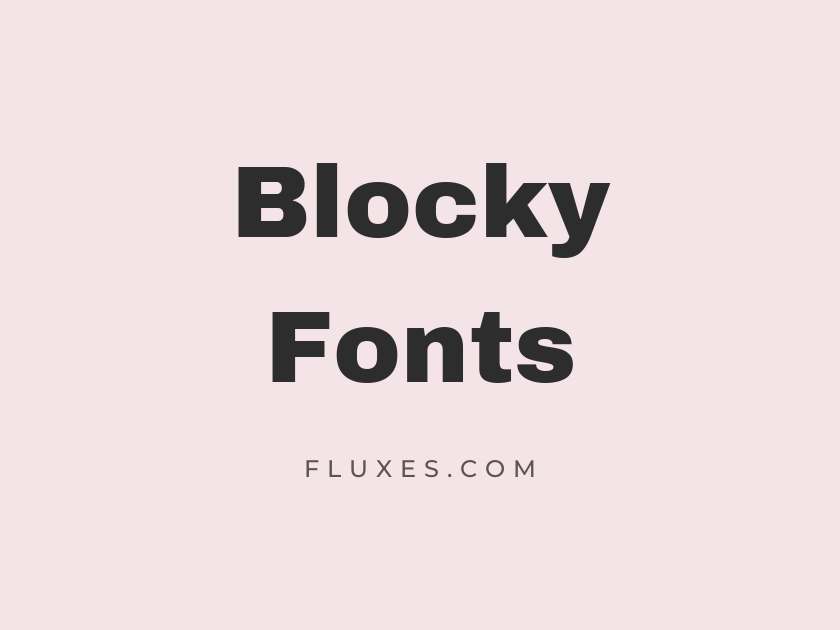
68 Best Blocky Fonts
Blocky type is the loudest, most confident corner of the type world: thick strokes, square proportions, minimal contrast between thin and thick, and letterforms built to hold their shape at billboard scale or inside a tiny app icon. Designers reach for these faces when a headline needs to feel solid, industrial, playful, or unapologetically bold, whether that means a slab serif with the weight of poured concrete or a geometric display face built from stacked rectangles. Every option here is free to download and use on Google Fonts, which makes it easy to test a few side by side before committing one to a logo, poster, or web header.
1. Archivo Black
Bold headlines built from solid, unshakable letterforms
Archivo Black is the workhorse of blocky sans serifs: dense, upright, and nearly impossible to misread even from across a room. It was built for headlines and app icons rather than long copy, and it holds its own against much fancier display faces without ever feeling gimmicky.
2. Anton
STRIKING POSTER TYPE FOR BOLD STATEMENTS
Condensed, ultra-heavy, and dramatic, Anton compresses a huge amount of visual weight into a narrow footprint. It is a favorite for sports graphics, protest signage, and album art precisely because it shouts without needing much space to do it.
3. Alfa Slab One
Chunky slab letters that anchor any layout
Alfa Slab One takes the slab serif and pushes it to cartoonish thickness, with almost no daylight between the strokes. Use it sparingly at large sizes; anything smaller than a headline turns muddy fast.
4. Bevan
Rugged slab serifs for rustic, handmade branding
Bevan reads like a stamped label from an old hardware catalog. Its rounded slab feet and slightly worn geometry suit craft packaging, western-inspired branding, and anything that wants warmth alongside its heft.
5. Arvo
Reliable slab serif for web headers and menus
Arvo is a dependable geometric slab that has been a default choice for blogs and small business sites for years, and for good reason. Its bold weight is blocky enough to command attention while staying legible in body-adjacent headings.
6. Roboto Slab
Sturdy slab serif pairs cleanly with any Roboto
As the slab-serif sibling of Roboto, this family gives you the same open, geometric skeleton with squared-off feet bolted on. It is an easy pick when a project already uses Roboto for body text and needs a blockier headline companion.
7. Zilla Slab
Editorial slab serif with quiet industrial character
Commissioned for Mozilla, Zilla Slab carries a slightly technical, engineered feel without losing warmth. The bold weight is thick enough to read as blocky while retaining enough detail for longer headlines.
8. Aleo
Geometric slab serif for confident brand headlines
Aleo
Aleo pairs slab seriousness with rounded terminals that soften the overall effect just slightly. It works well anywhere a brand wants to feel sturdy but approachable rather than aggressive.
9. Bitter
Sturdy slab serif built for screens and print
Bitter was designed specifically to hold up on screens, and its bold cut has enough mass to function as a genuinely blocky display option. It is a smart choice for editorial sites that want a slab serif without sacrificing readability.
10. Rokkitt
Playful slab serif with rounded, chunky charm
Rokkitt
Rokkitt leans friendlier than most slabs, with soft curves inside otherwise heavy, geometric letterforms. It suits children’s brands, playful editorial sites, and anywhere a blocky headline shouldn’t feel cold.
11. Josefin Slab
Elegant slab serif with an art deco backbone
Josefin Slab
Built on the same geometric skeleton as Josefin Sans, this slab keeps a touch of art deco elegance even at its boldest weight. It suits fashion, interiors, and lifestyle brands that want blocky structure without losing refinement.
12. Bree Serif
Friendly rounded slab for casual headlines
Bree Serif
Bree Serif softens its slab serif blocks with generous curves, giving it a conversational, almost handwritten warmth. It reads well in short headlines and callouts but was never meant for dense paragraphs.
13. Arbutus Slab
Vintage-inspired slab with sturdy, stamped feel
Arbutus Slab
Arbutus Slab has a slightly worn, old-print quality that suits menus, labels, and retro branding. Its heavy, blocky serifs give it presence even in a single word set large.
14. Coda
Heavy display slab built for big impact type
Coda
Coda’s bold weight is unapologetically massive, with thick slab serifs that feel almost architectural. It is built for short, punchy headlines rather than anything that needs to breathe.
15. Chonburi
Bold slab serif with Thai display heritage
Chonburi
Chonburi blends Latin slab-serif structure with proportions influenced by Thai display lettering, giving it a distinctive silhouette among blocky fonts. It works beautifully on posters, packaging, and signage that want a bit of cultural texture.
When in doubt, let the blocky font carry the weight and keep everything else around it simple: generous spacing, a neutral color palette, and a calm secondary typeface.
Blocky type covers a wide range of moods, from the industrial calm of a squared sans to the cartoon bounce of a bubble letterform, and Google Fonts makes it simple to test any of these directly in a real layout before download. Whether the goal is a poster, a game interface, or a brand that needs to feel unmistakably solid, there is a genuinely free option here built for the job.